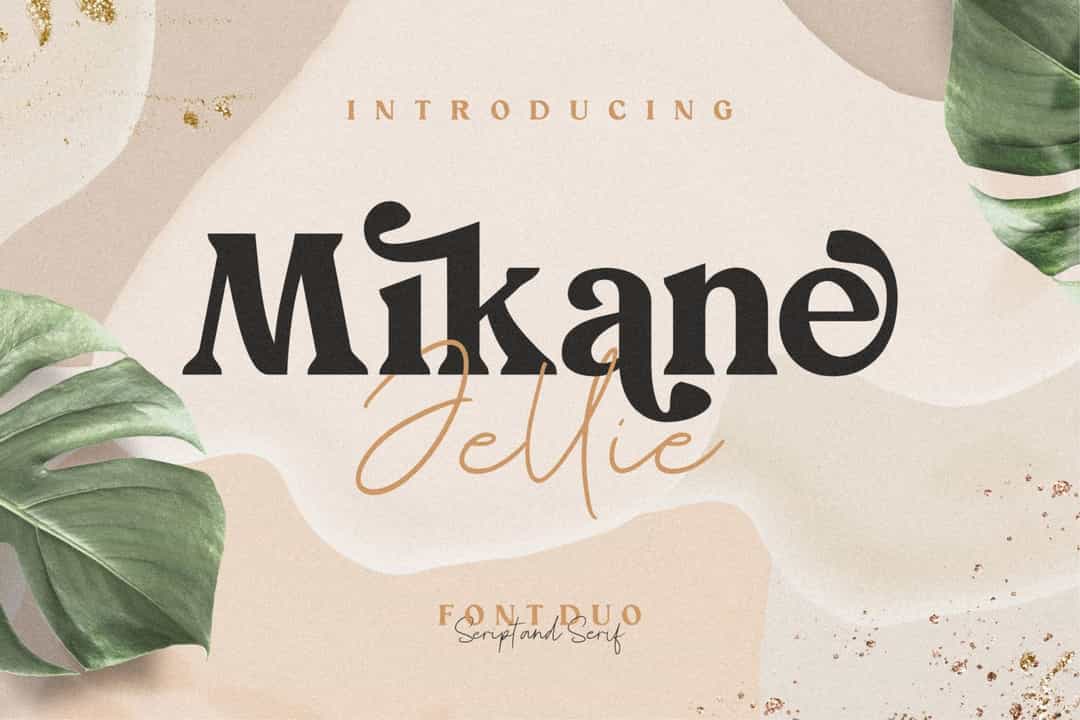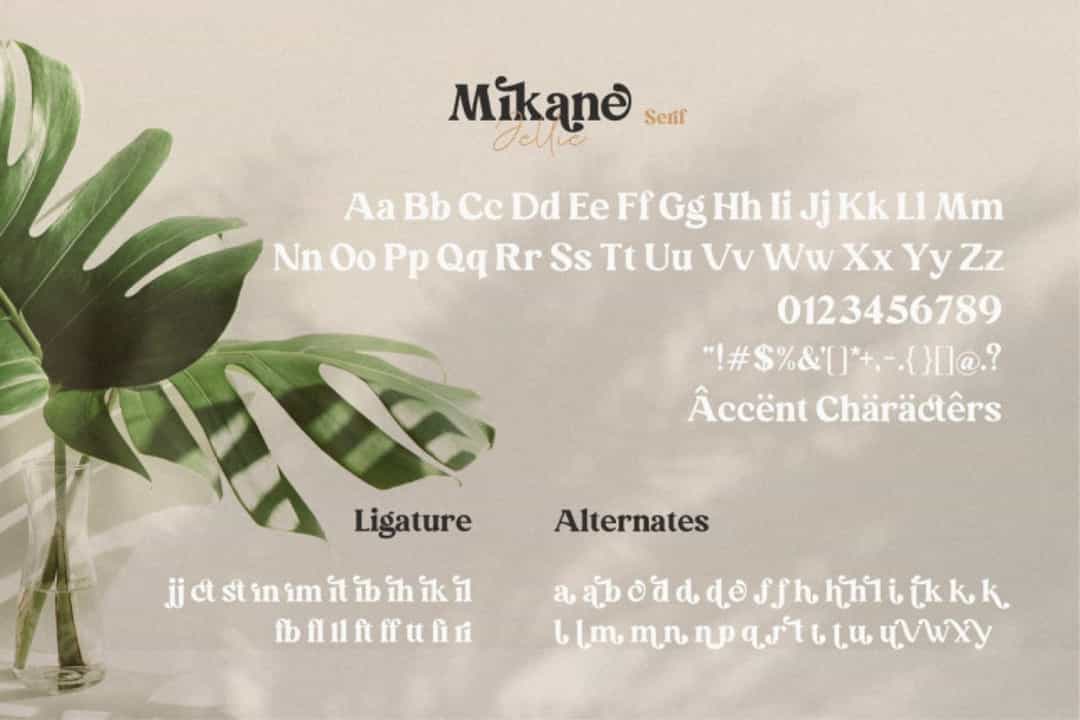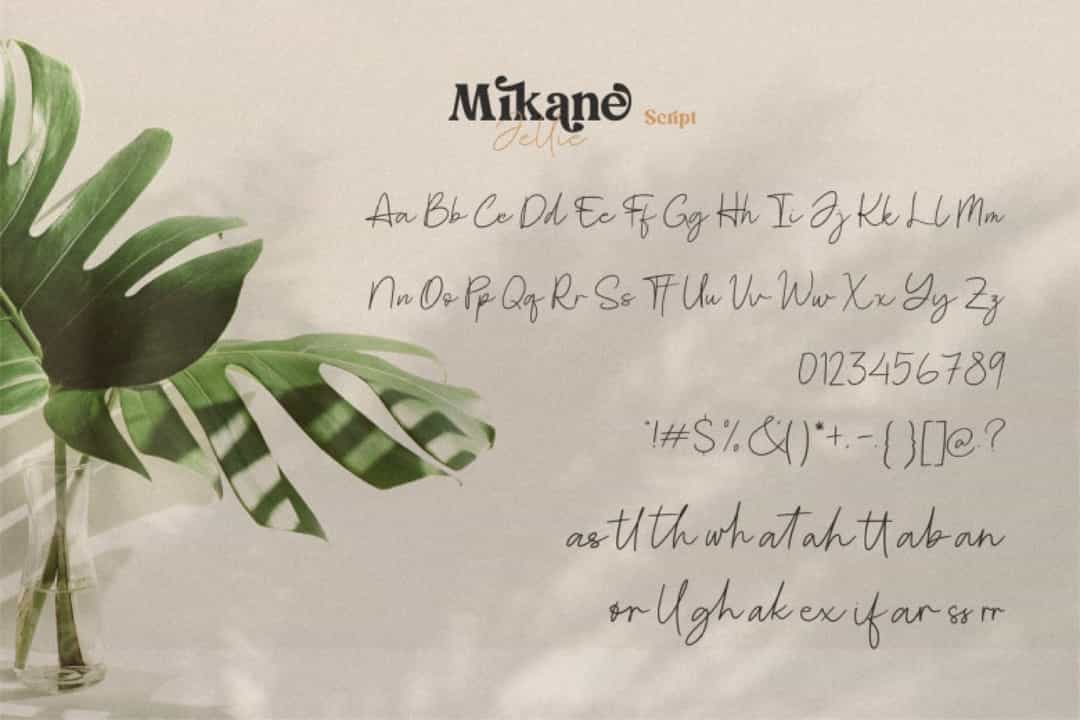
Mikane Jellie strikes the perfect balance between sophisticated and contemporary. The duo font (script and serif) will give your ideas life. Plus, its encoded with PUA makes accessing every glyph and swash easy!